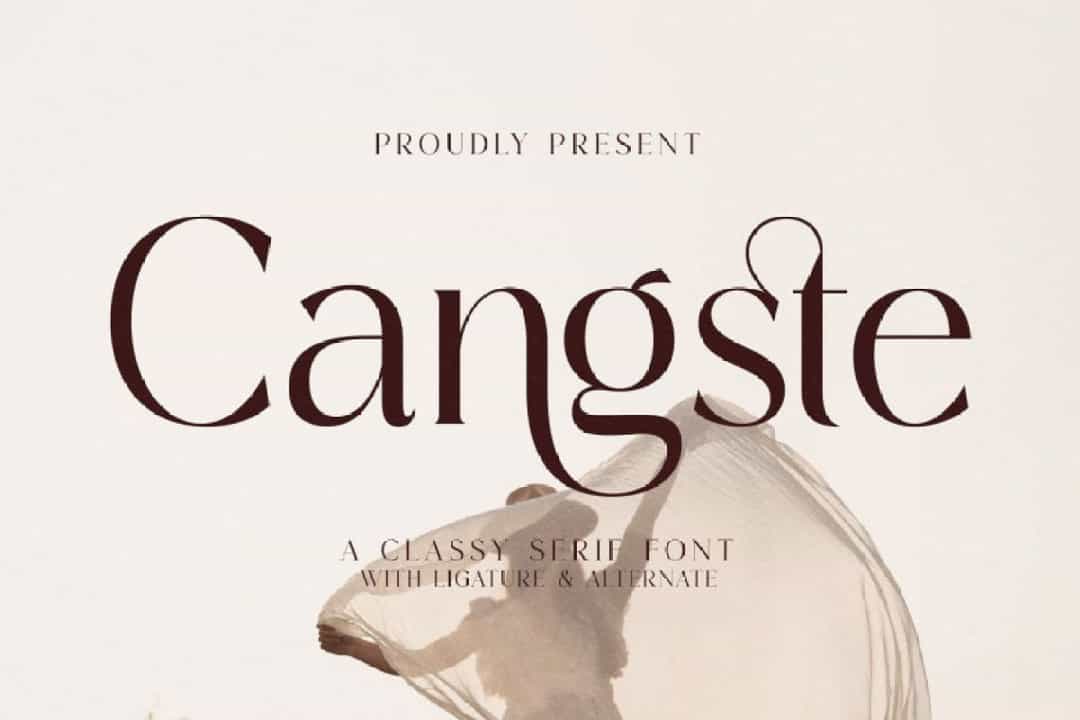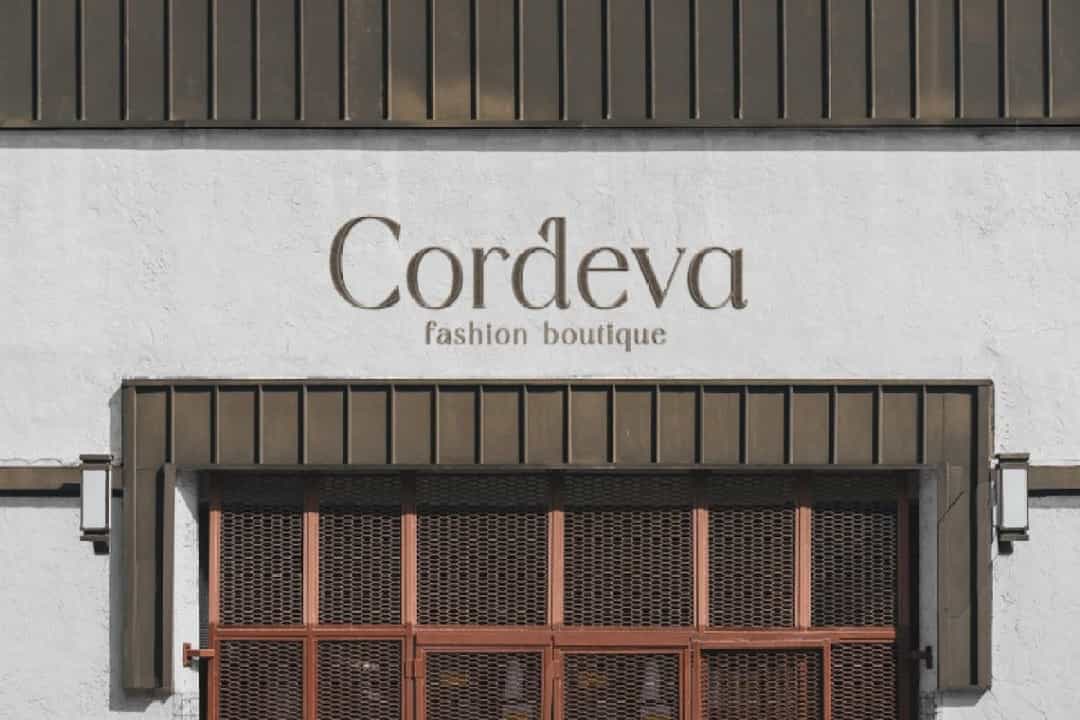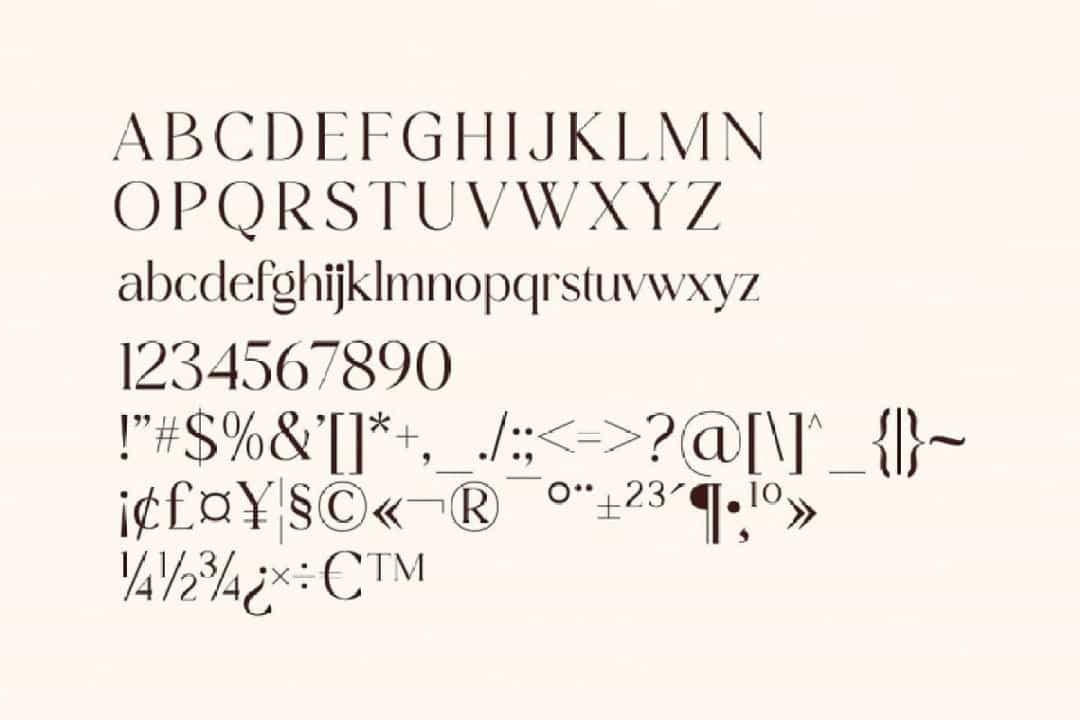
Storytype’s Cangste is a modern serif and classic typeface with its own distinct style and contemporary feel, perfect for creating classy logos, movie or book titles, fashion brand clothing collections, magazines letters and quotes among many other uses. We are delighted to introduce it here today.